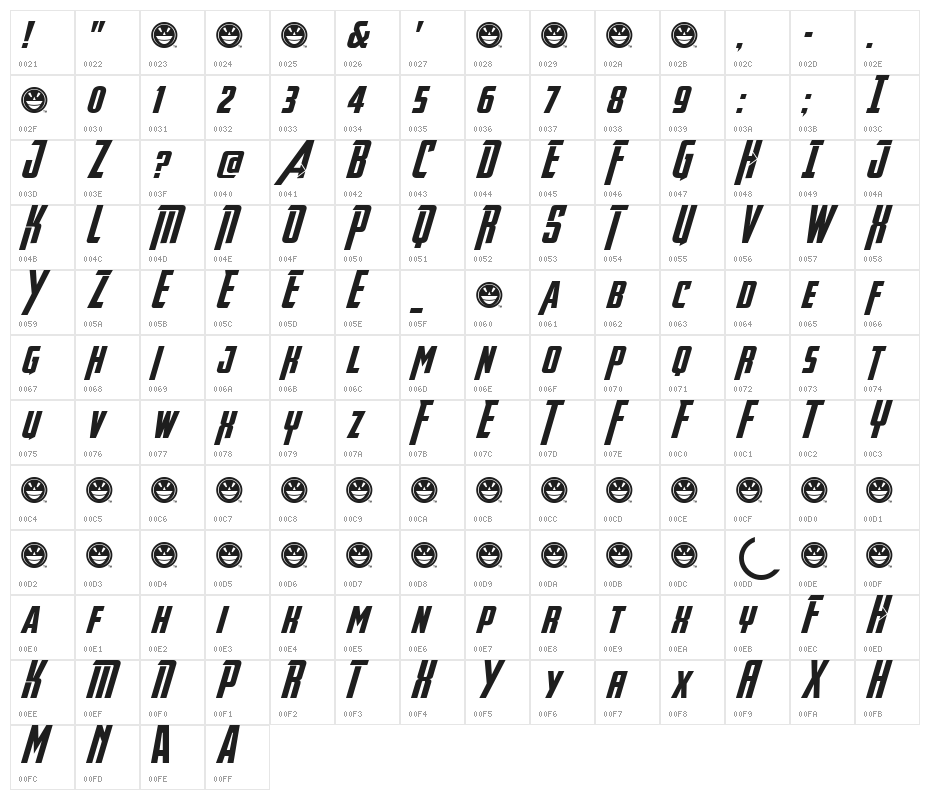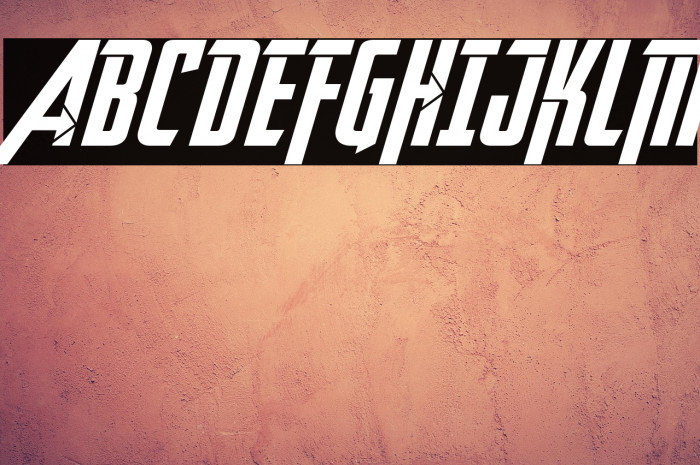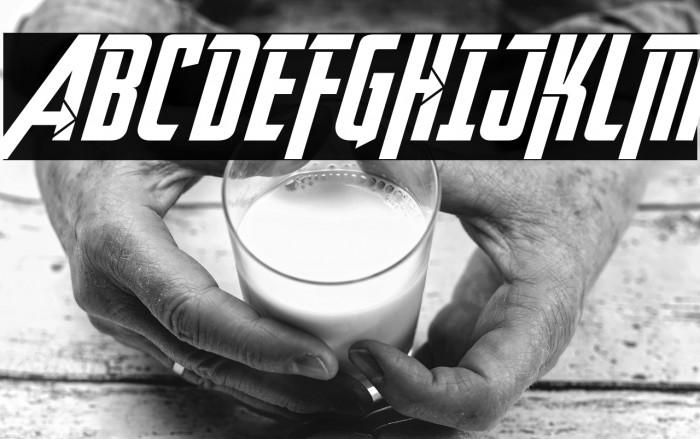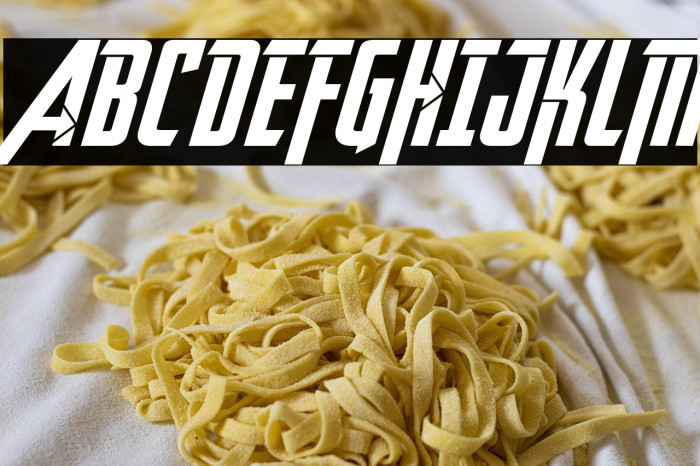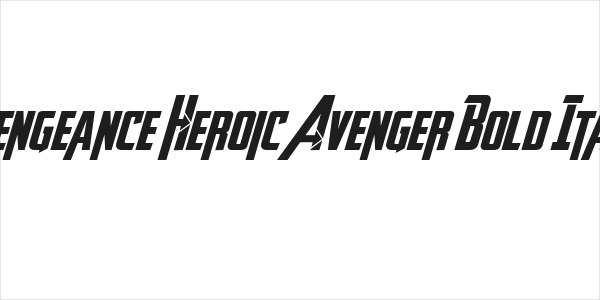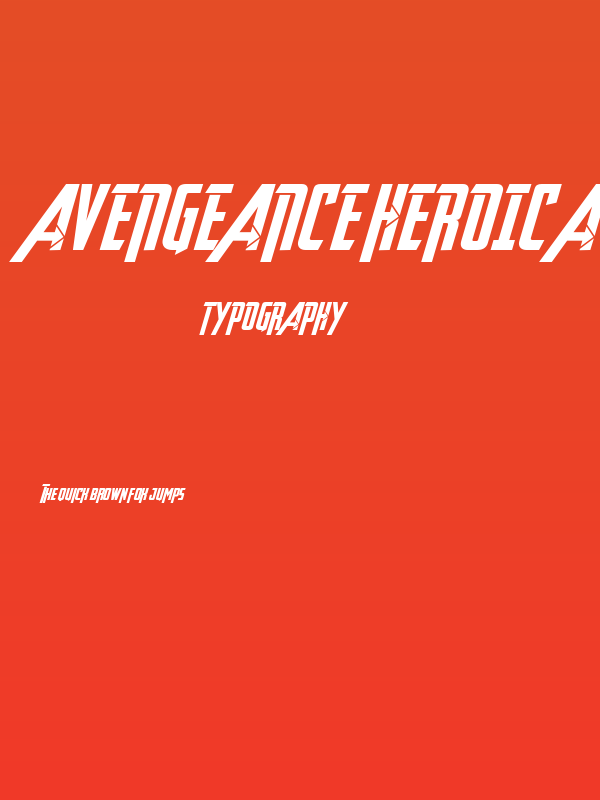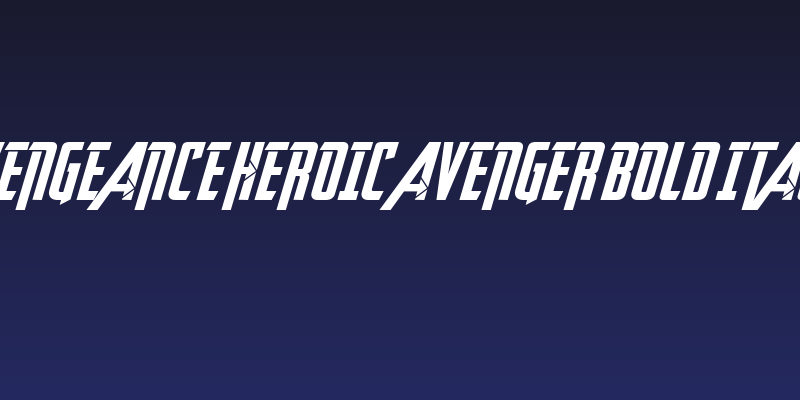
Avengeance Heroic Avenger Bold Italic Font
Avengeance Heroic Avenger Bold Italic Description
This dynamic and bold typeface features sharp, angular lines and a strong, heroic presence. The letters are italicized, adding a sense of motion and urgency. The uppercase characters are particularly striking, with a futuristic and powerful aesthetic. The numbers and special characters maintain this bold style, ensuring consistency throughout. This font is ideal for projects that require a strong, impactful visual statement.
| Overall Style | Modern, Heroic |
| Proposed Projects | Ideal for superhero-themed designs, movie posters, video game covers, and branding that requires a strong, bold statement. |